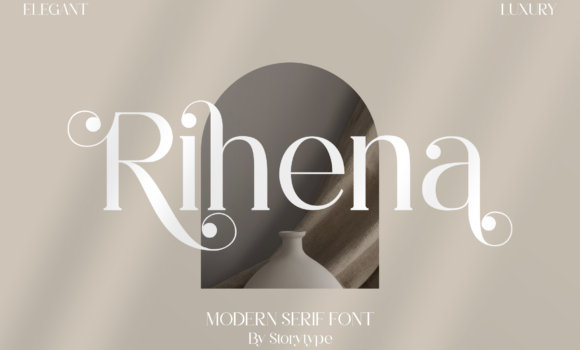
rihena
Rihena Font - Featured Image
Rihena Font – Free Download Introduction to Rihena Font Proudly present Rihena – modern and classic serif font featuring its own unique style and modern look. 📸 Preview Gallery 6 images 📌 Product Name Rihena Font 👤 Author Storytype Studio